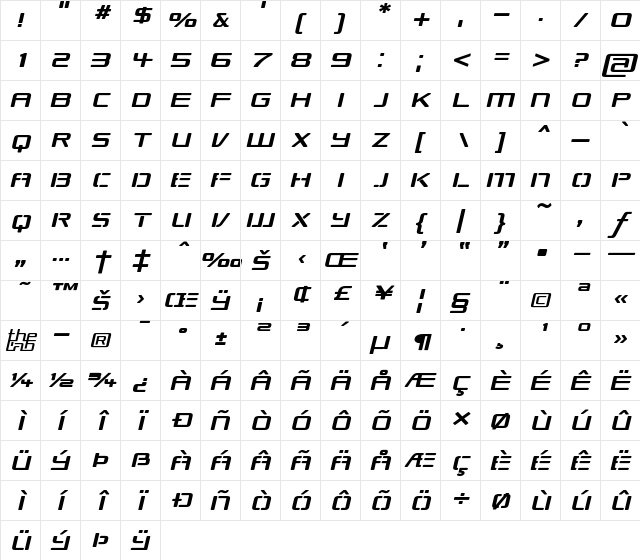
Republikaps Exp Italic
Design Context for Republikaps Exp Typeface
Republikaps Exp offers clean, dependable letterforms without strong stylistic allegiance, making it a practical choice for designers who need flexibility. The slanted form adds forward momentum and visual energy.
Pro Tip: Try Republikaps Exp for annotation and caption copy alongside an upright companion — the contrast in angle creates a dynamic but ordered typographic system.